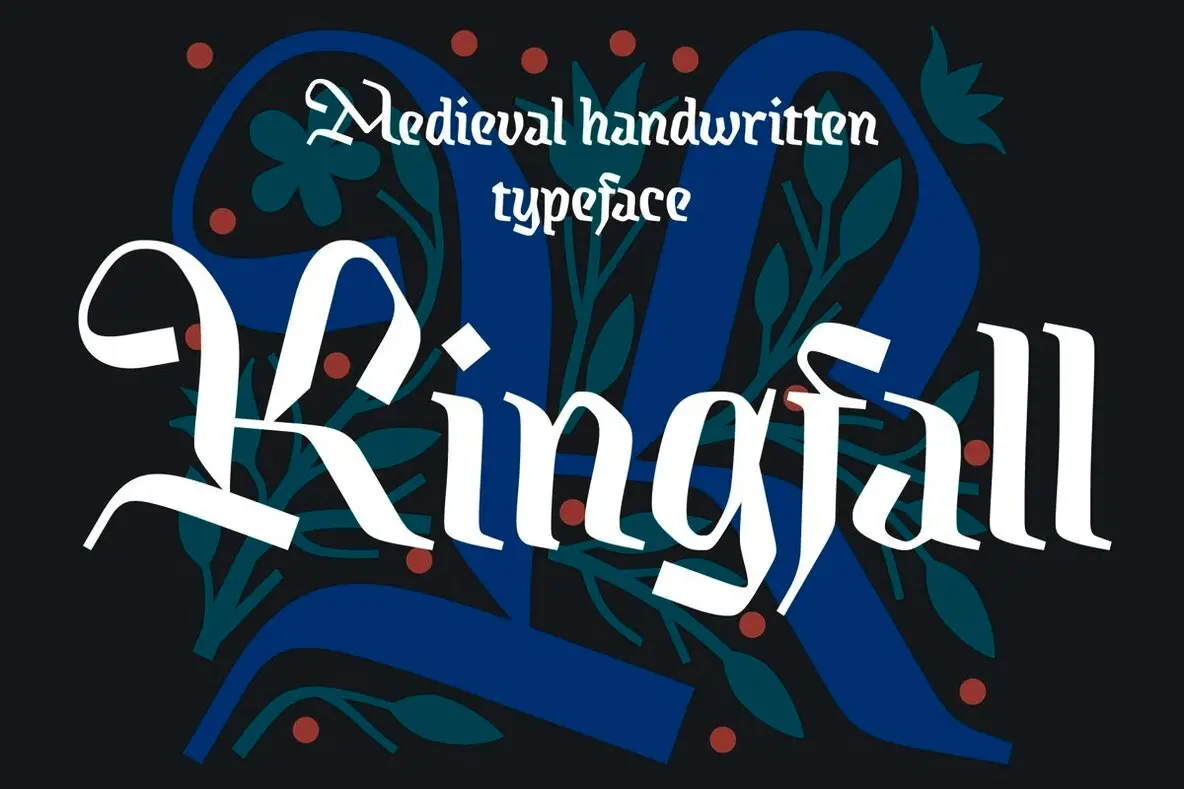
Kingfall Font
Kingfall Light
Kingfall Aerial
Kingfall Blessed
Kingfall Dark
Kingfall Engraved
Kingfall Initials
Kingfall is a meticulously crafted handwritten medieval typeface that embodies a unique fusion of history and artistry. This font is crafted using a flat calligraphic nib, producing a dramatic contrast between its condensed lowercase letters and large, ornamental uppercase characters. The uppercase letters also serve as striking initials, a nod to the architectural grandeur of medieval inscriptions. The letterforms mimic the raw artistry of ancient blacksmiths, forged to life with each bend and edge distinctively hand-shaped. While the strokes exude a rugged, medieval aura, they eschew strict geometric precision, infusing a warm, human element into the typography.Kingfall: A Calligraphic Tribute to Medieval Elegance